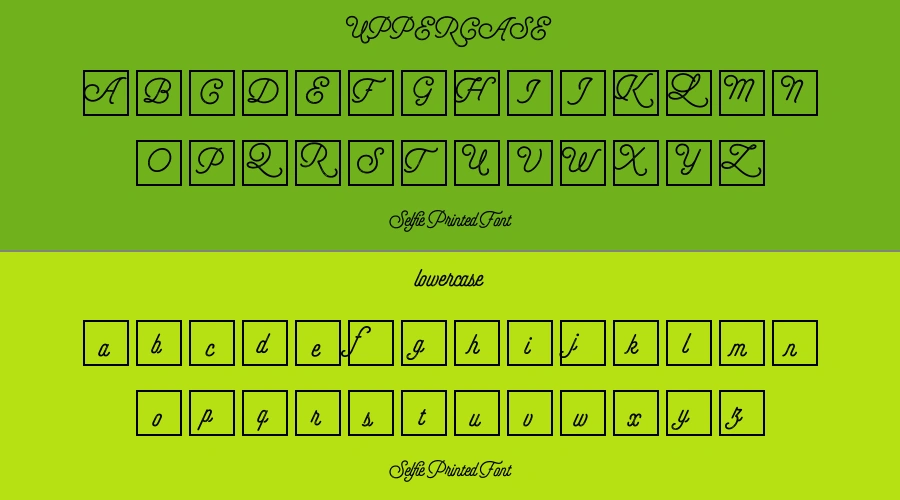
About Selfie Printed Font
Selfie Printed Font stands out for its distinctive combination of elegant proportions and versatility. Ideal for advertising campaigns, it provides the versatility and cultural relevance that professional projects demand. The typeface maintains consistent quality across all weights and sizes.
Key features include refined precise alignment and practical historical alternates, enhancing typographic expression. In specification lists applications, Selfie Printed Font demonstrates exceptional OCR compatibility. The bowl shape and market positioning contribute to its distinctive character and professional appeal.